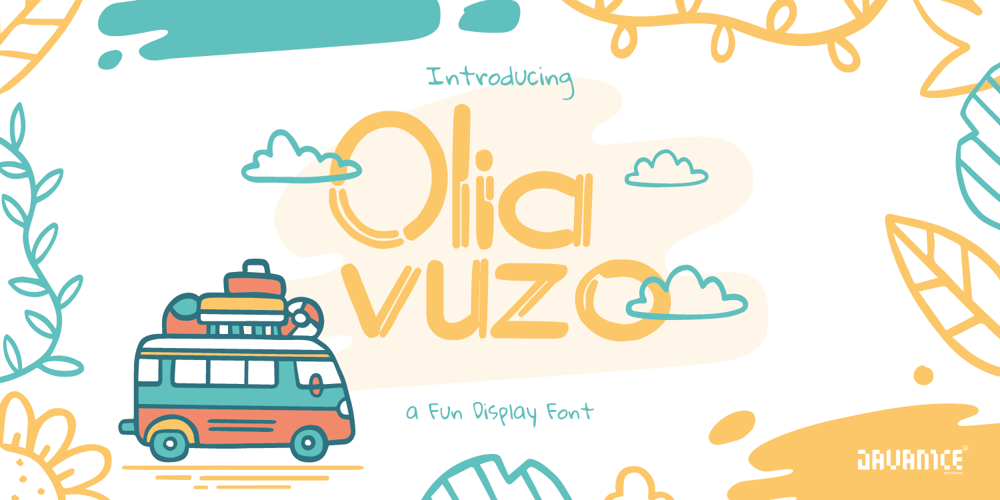
Olia Vuzo Font Family was designed by Revsani Hisyam Wardhana and published by Javanice Studio. Olia Vuzo contains 1 styles and family package options. Introducing Olia Vuzoby Javanice StudioOlia Vuzo is A Fun Display FontOlia Vuzo is perfect for branding project, apparel, labels, magazines, books, greeting / wedding cards, packaging, fashion, make up, stationery, and any type of advertising purpose or just used to express words above the background.This font includes OTF&TTF&Woff, Olia Vuzo also multilingual support.Enjoy the font, feel free to comment or feedback, send me PM or email.